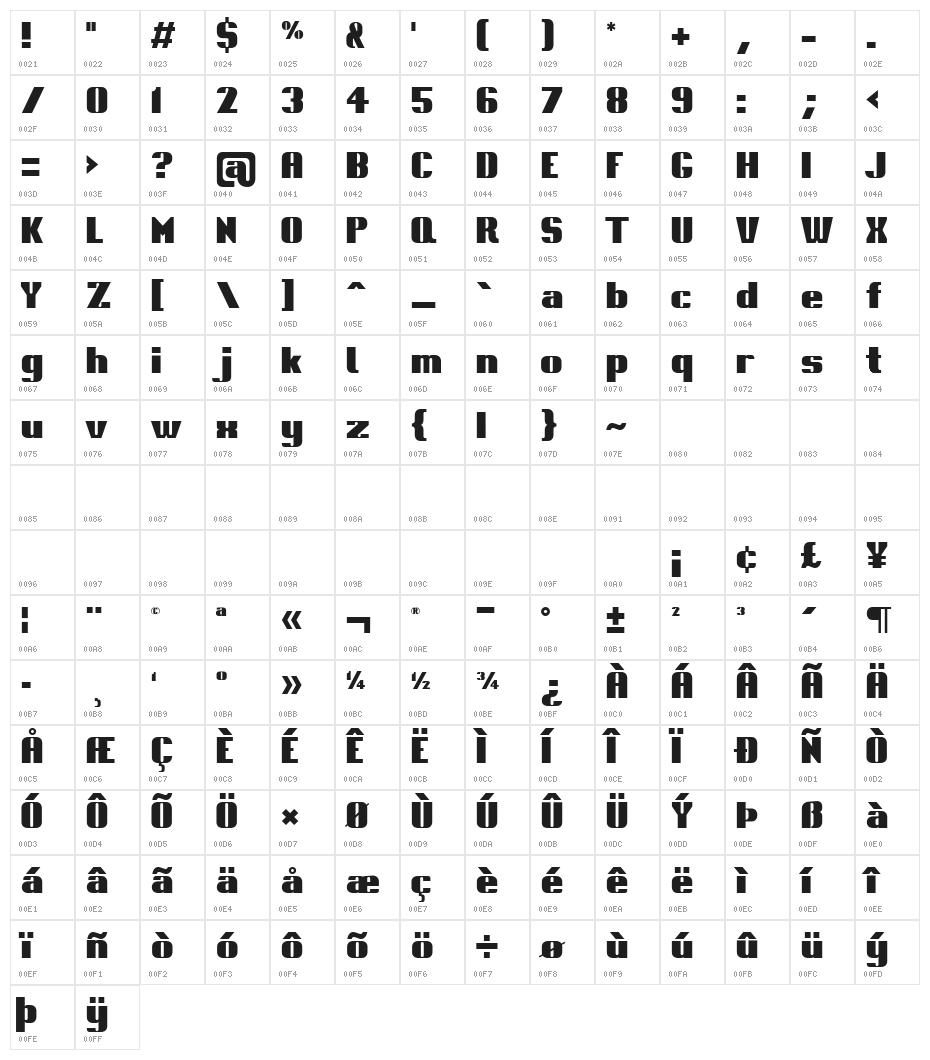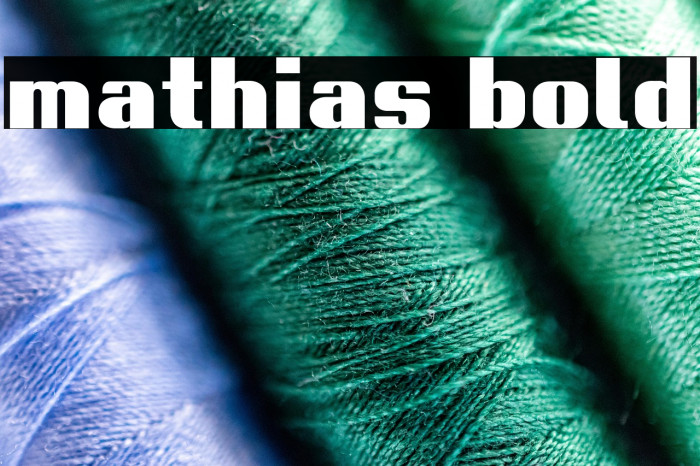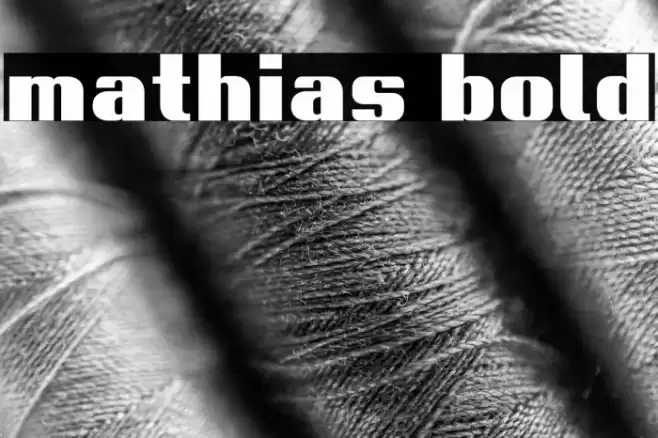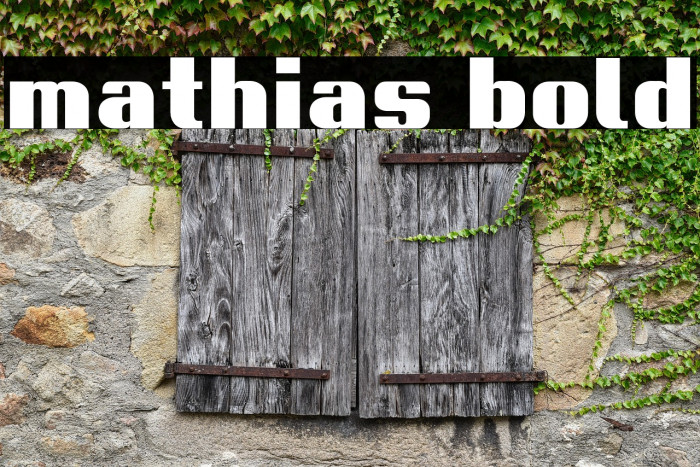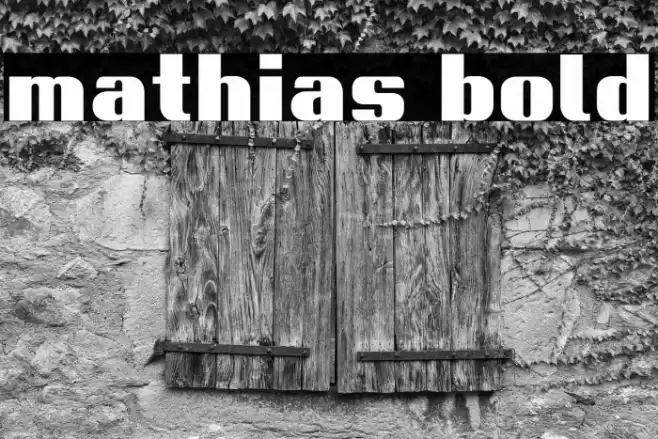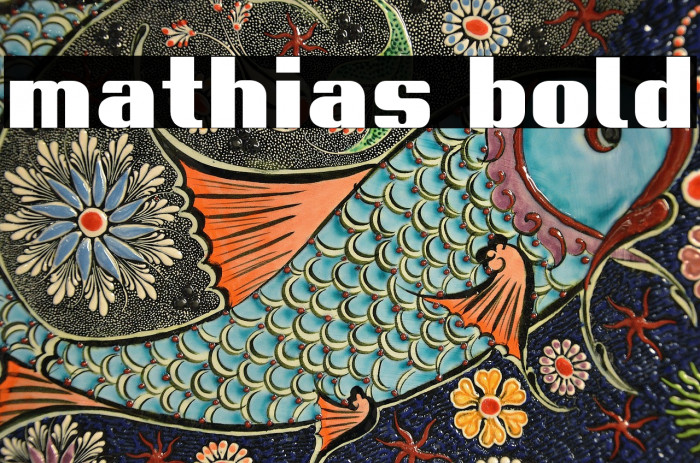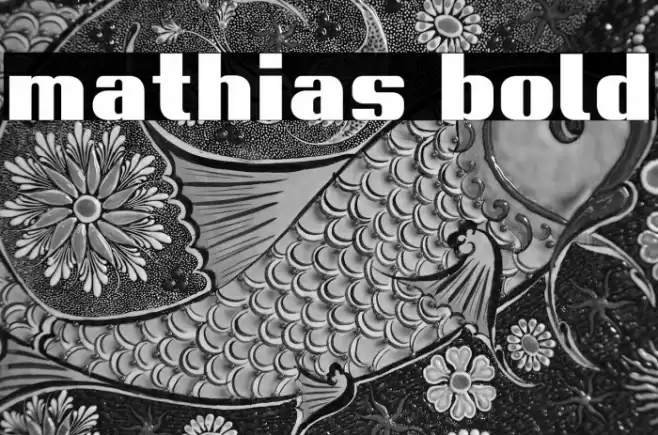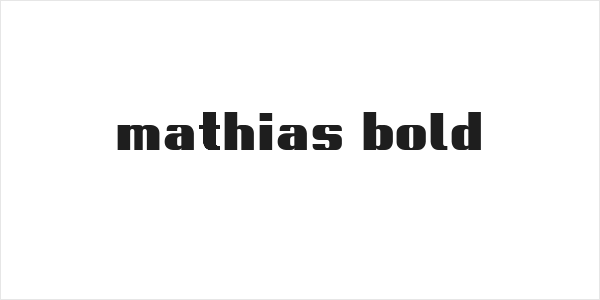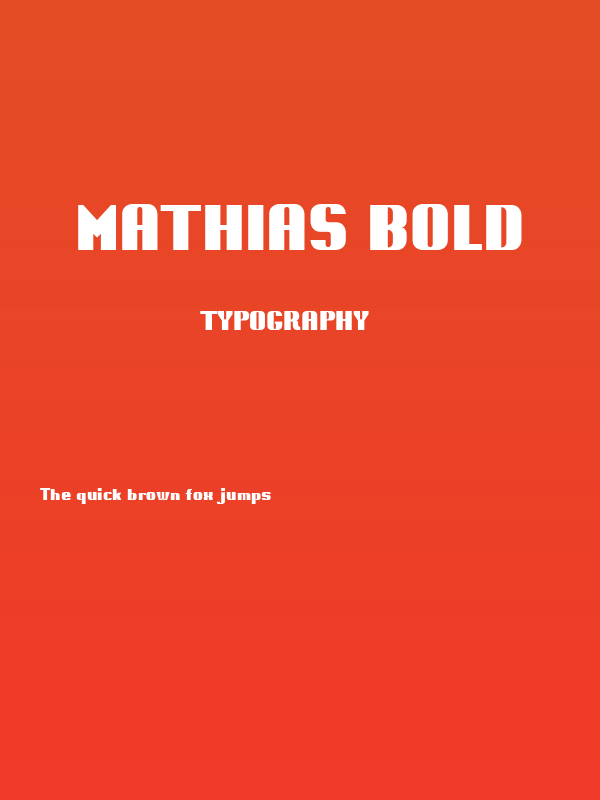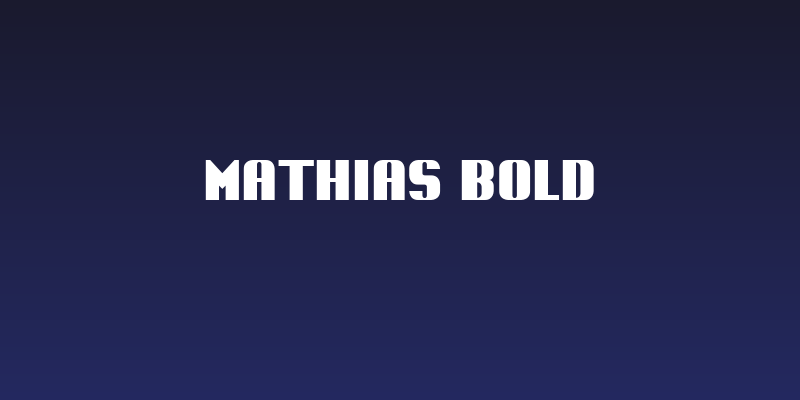
mathias bold Font
mathias bold Description
This font features bold, geometric letterforms with a strong presence. The uppercase letters are characterized by their blocky, robust shapes, while the lowercase letters maintain a consistent weight and style. The numerals are equally bold, ensuring readability and impact. Special characters are designed to match the boldness of the alphabet, making them suitable for various design needs. The overall design is modern and assertive, ideal for making a statement.
Proposed ProjectsIdeal for headlines, posters, branding, and any project requiring a strong visual impact.